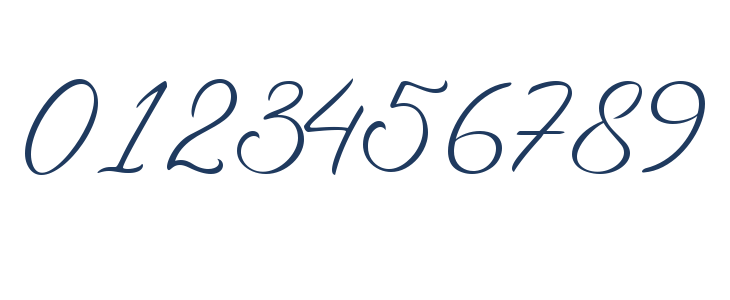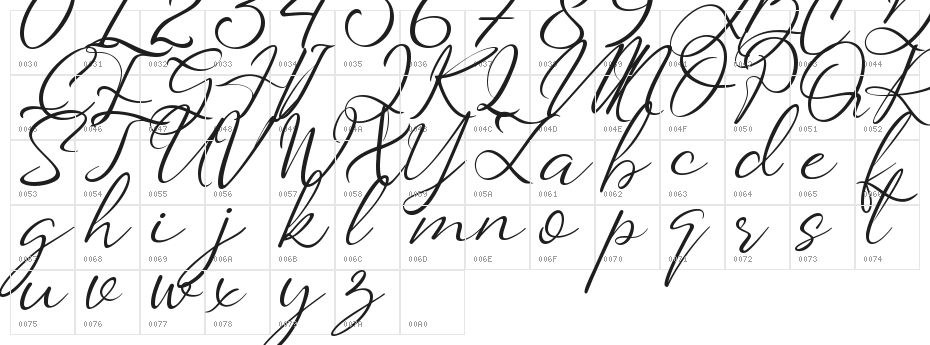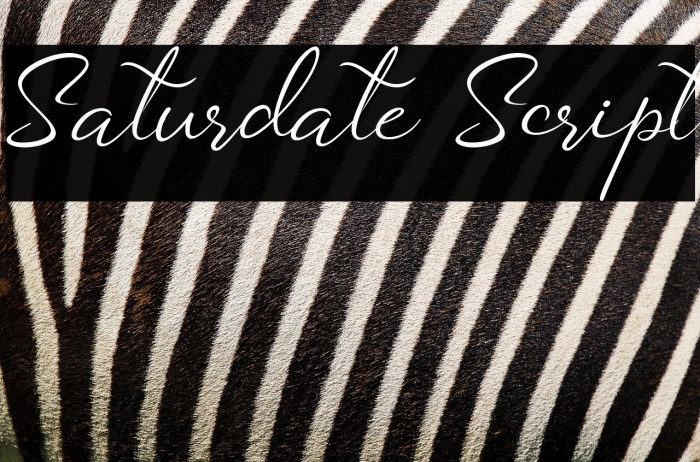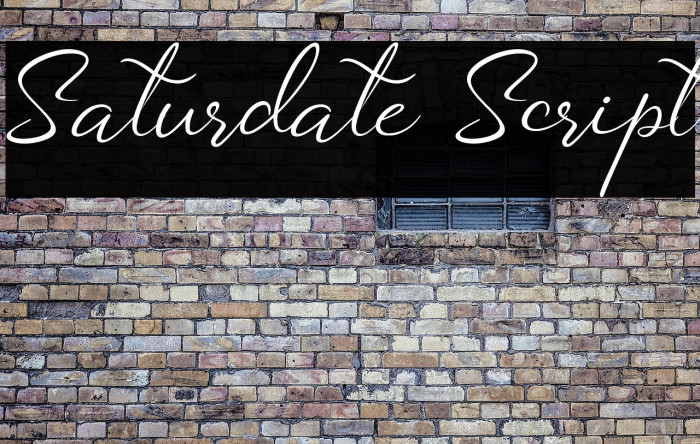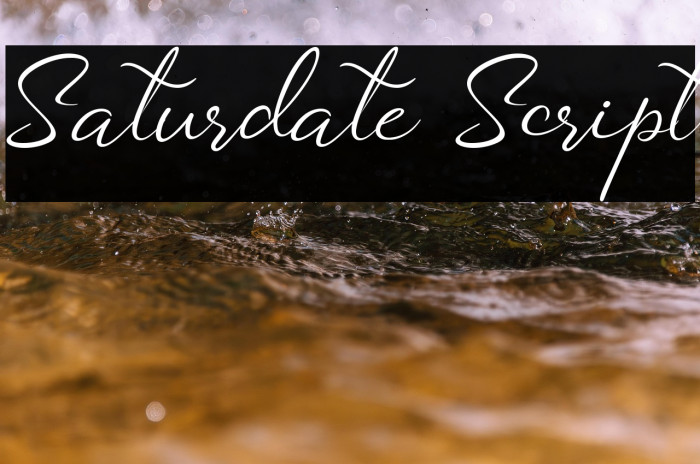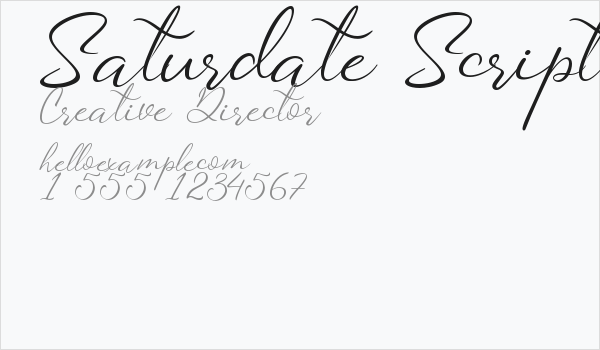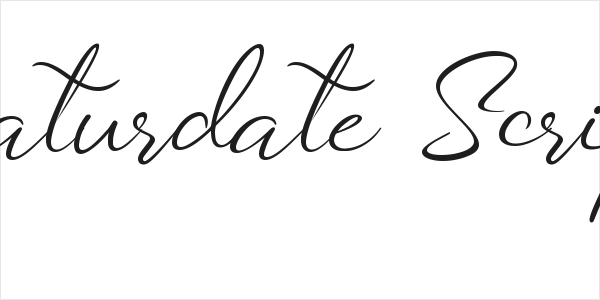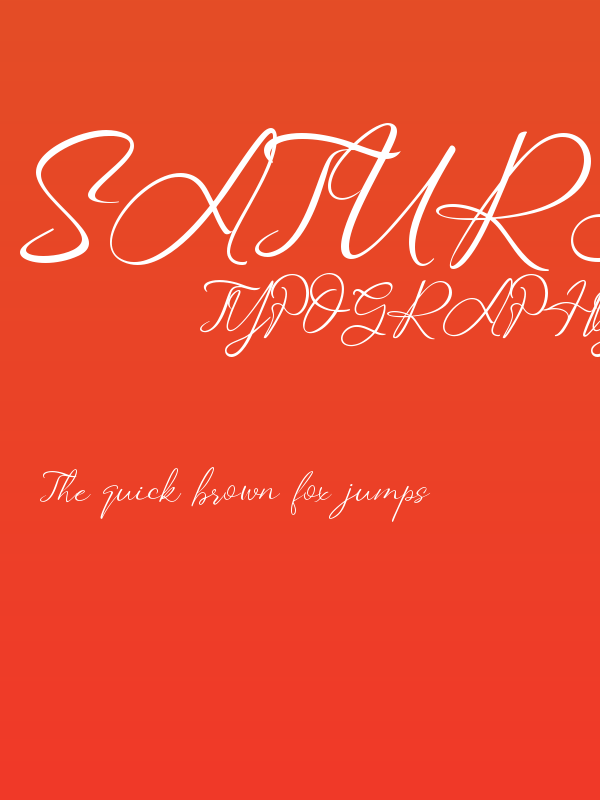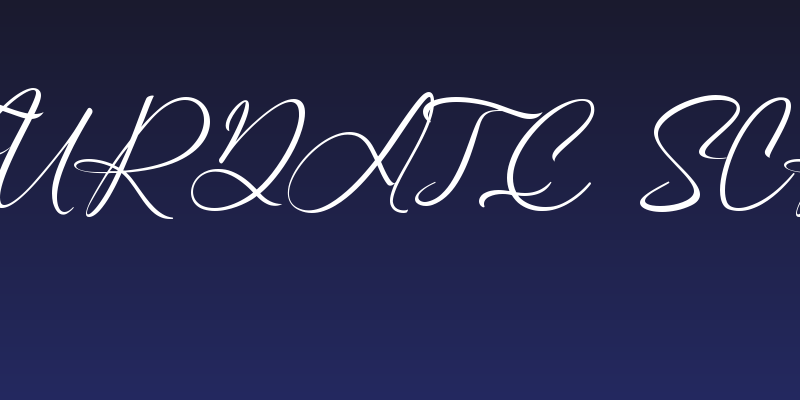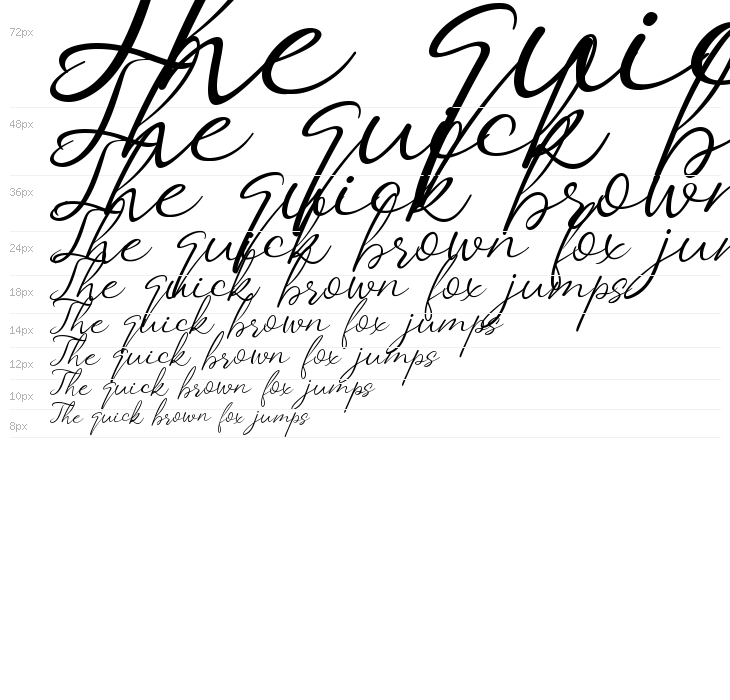
Saturdate Script Font
Saturdate Script Description
This elegant script font features flowing, interconnected letters that mimic the fluidity of cursive handwriting. The uppercase letters are ornate and slightly larger, providing a graceful contrast to the more delicate lowercase letters. Each character is crafted with smooth curves and loops, giving the font a sophisticated and artistic appearance. The numbers maintain the same fluid style, ensuring consistency across all characters. This font exudes a sense of elegance and refinement, making it ideal for projects that require a touch of class and sophistication.
| Overall Style | Elegant |
| Use Case | Logos, Invitations, Decorative text |
| Proposed Projects | Ideal for wedding invitations, greeting cards, elegant branding, and upscale packaging. |